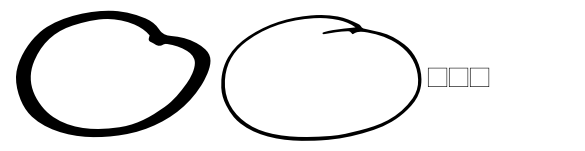
Strangeways
by Ana's Fonts
The Strangeways Font Family was designed by Ana Parracho and published by Ana's Fonts. Strangeways contains 3 styles and family package options. More about this family
Meet Strangeways! A cute handwritten font in 2 weights, bold & italic, with:
• A-Z, a-z, 0-9, accents punctuation and symbols
• Ligatures
• Extra squiggles that can be used to underline, strike through or decorate your text.
• New! Cyrillic alphabet
Strangeways great for any of your cute designs, in quotes, postcards, logos.
Designers: Ana Parracho
Foundry: Ana's Fonts